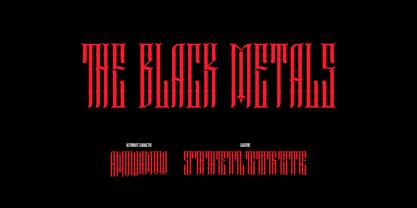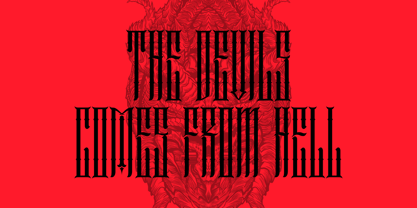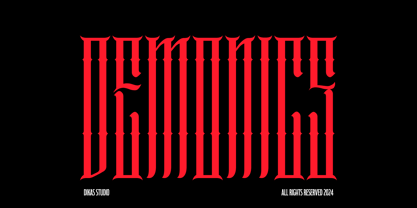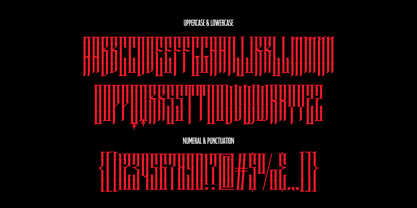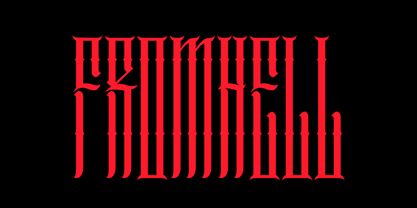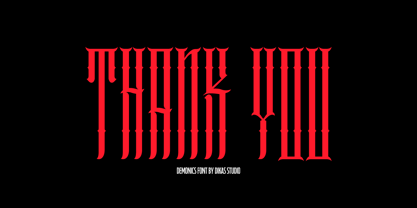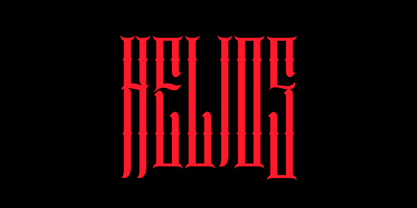
Demonics
by Dikas Studio
The Demonics Font Family was designed by Andika Setiawan and published by Dikas Studio. Demonics contains 1 styles. More about this family
Demonics is a striking serif font with tall characters and horn-like serifs, perfect for adding a sinister edge to your designs. Ideal for Halloween posters, spooky t-shirts, eerie merchandise, and more, this font captures the essence of horror and the supernatural. Let Demonics bring a hauntingly bold statement to your creative projects.
Designers: Andika Setiawan
Foundry: Dikas Studio